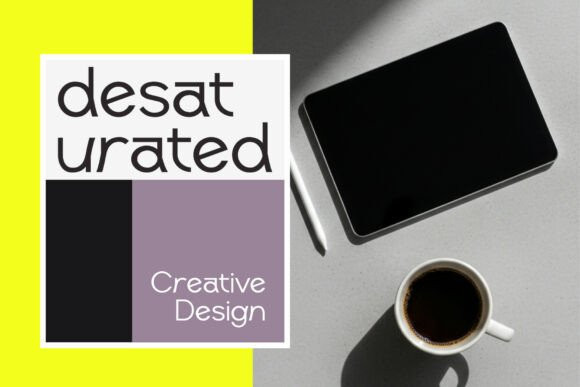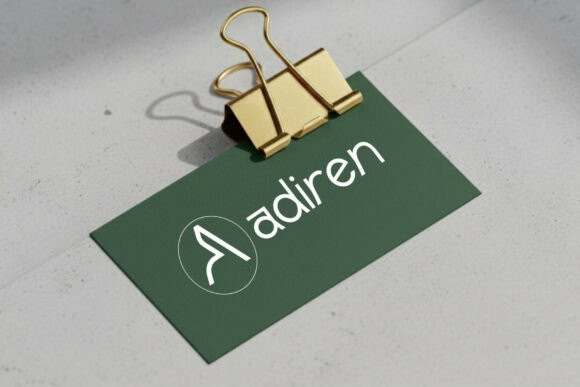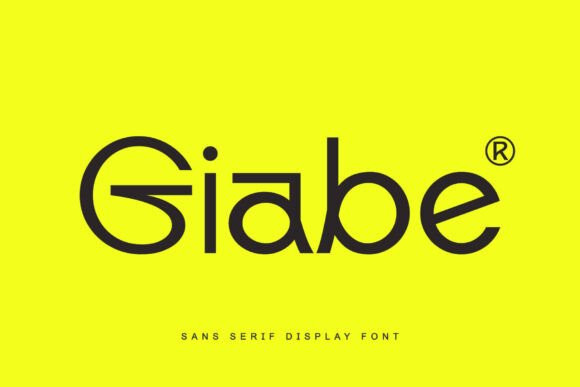
Giabe Font
Giabe Font is a modern sans serif display font designed with a clean, confident, and contemporary character. Featuring smooth curves, balanced proportions, and a distinctive geometric touch, Giabe delivers strong visual impact while remaining highly readable.
This font is ideal for branding, creative studios, interior design, technology projects, editorial layouts, posters, websites, UI/UX design, and modern marketing materials. Its minimalist yet expressive style makes it perfect for designs that aim to feel fresh, bold, and forward-thinking.
Giabe works beautifully in headlines, logos, product showcases, and digital interfaces, offering versatility across both print and screen. Whether you’re building a modern brand identity or crafting sleek visual content, Giabe brings clarity, personality, and professional polish to your typography.